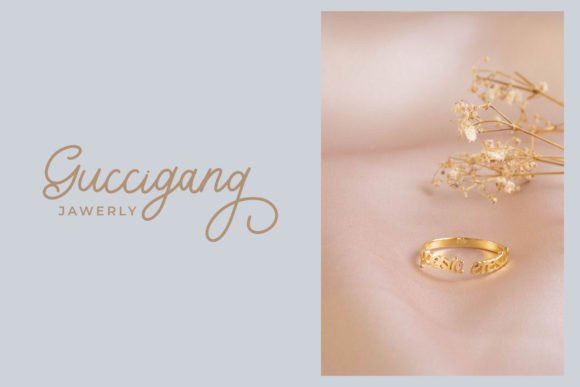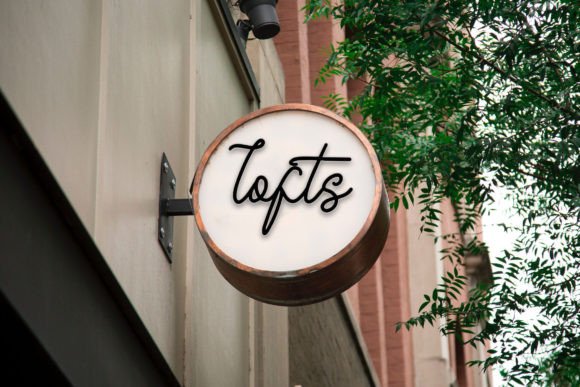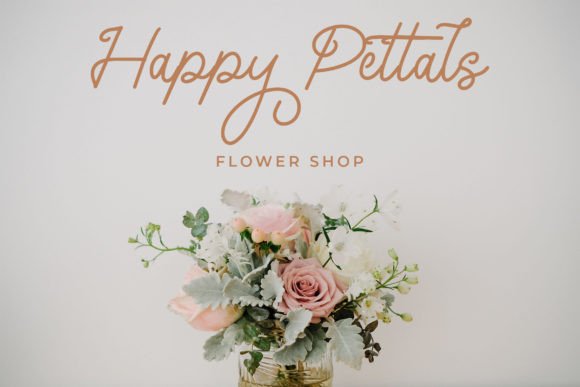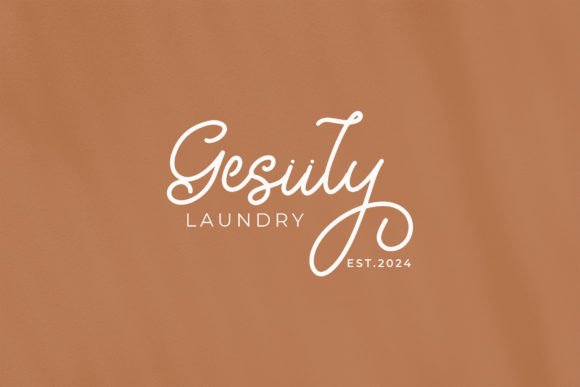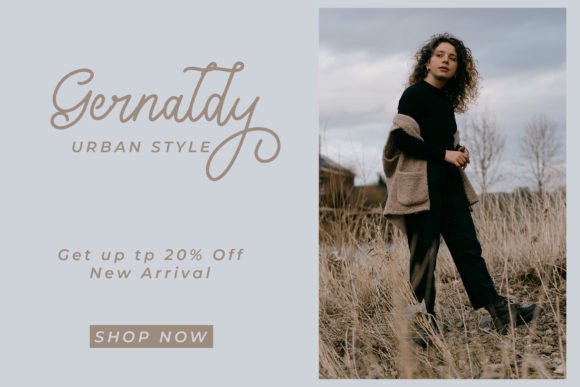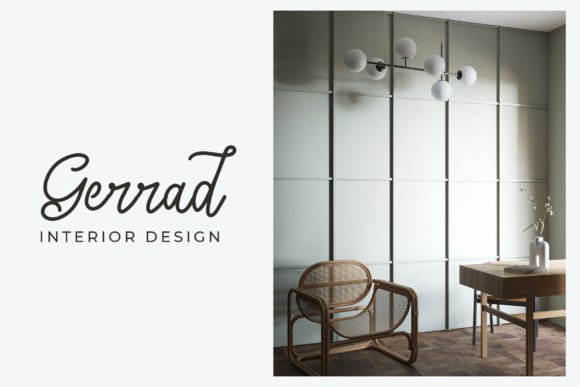
Introduction to Girly Jacking Font
Girly Jacking – Elegant Monoline Script Font Introducing Girly Jacking, a stunning script font with a smooth monoline style.
This font stands out with its beautifully crafted characters, offering a unique and elegant touch to any design Perfect for enhancing branding, invitations, logos, and packaging, Girly Jacking brings sophistication and charm to your creative projects.
Key Features of Girly Jacking Font
Why Choose Girly Jacking Font?
Girly Jacking Font offers exceptional quality and versatility, making it a valuable addition to your design toolkit. Whether you’re creating for personal projects or commercial use, Girly Jacking Font delivers professional results.